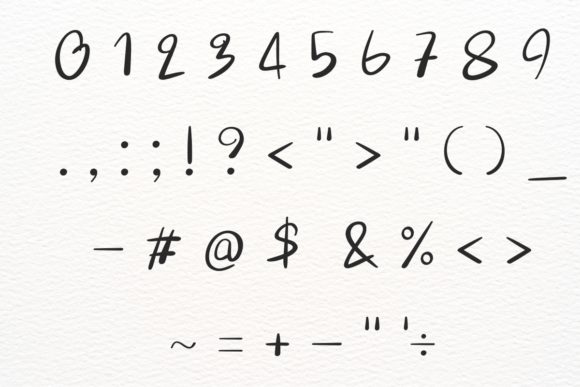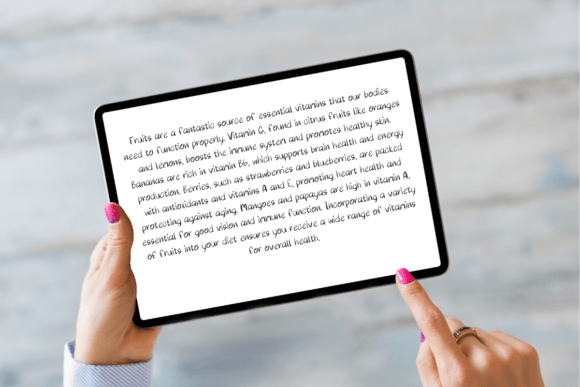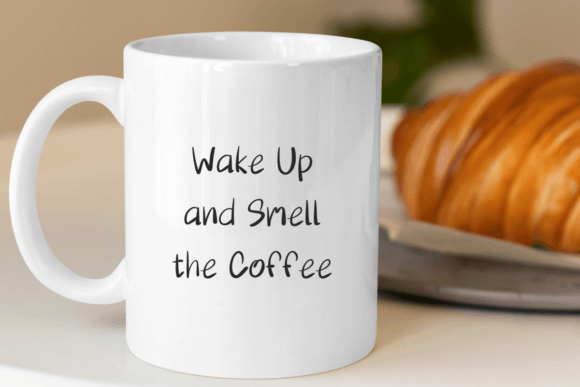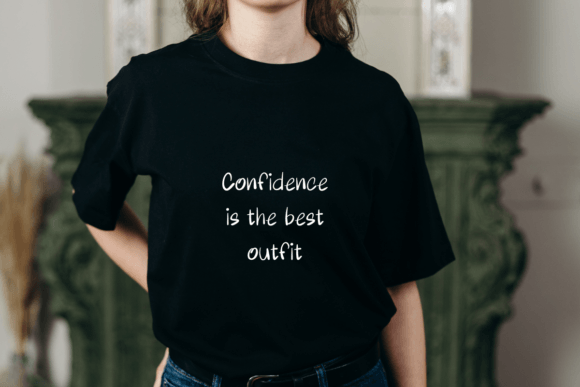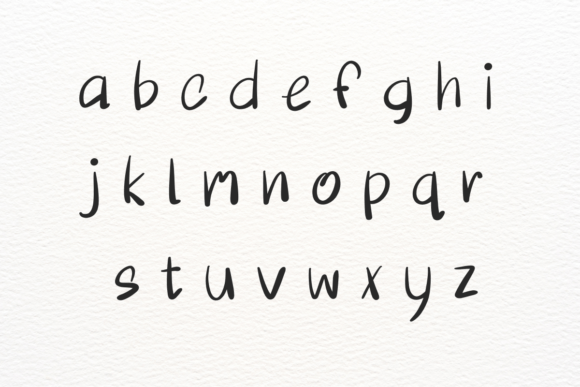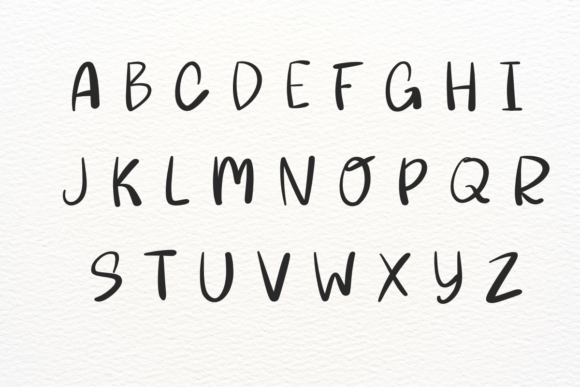
The Adorable Abigail Font: A Designer’s New Best Friend
I still remember the day I stumbled upon the Abigail font while working on a children’s book project. I was on a tight deadline, and my designer brain was stuck on finding the perfect font that would make my illustrations pop. The client wanted something playful, yet elegant, and I was determined to deliver. That’s when I discovered Abigail – a cute font that instantly captured the whimsical feel I was going for. In this article, I’ll share my love for Abigail, its features, and how to make the most of it in your designs.
An Honest Review of Abigail Font
What I Love About Abigail ✨
- ✅ Playful yet elegant: Abigail strikes the perfect balance between being fun and sophisticated, making it ideal for children’s product design, school work, or creative projects.
- ✅ Highly versatile: From logos and branding to product packaging, mug designs, and invitation cards, Abigail can be used in a wide range of applications.
- ✅ Easy on the eyes: The font’s clean lines and rounded edges make it easy to read, even in smaller sizes.
- ⚠️ Limited use in formal designs: While Abigail is perfect for creative projects, it might not be the best fit for formal or corporate designs that require a more professional tone.
- ⚠️ Some letters may require manual kerning: As with any font, you might need to adjust the kerning for certain letter combinations to achieve optimal readability.
The Story Behind Abigail Font
Abigail was designed by a talented type designer who wanted to create a font that would bring joy and whimsy to creative projects. Inspired by classic children’s books and playful illustrations, Abigail was born – a font that’s both elegant and fun.
Q: Is Abigail font suitable for body text?
A: While Abigail is a beautiful font, it’s best suited for headlines, titles, and short paragraphs. For longer body text, you may want to consider a more traditional serif or sans-serif font.